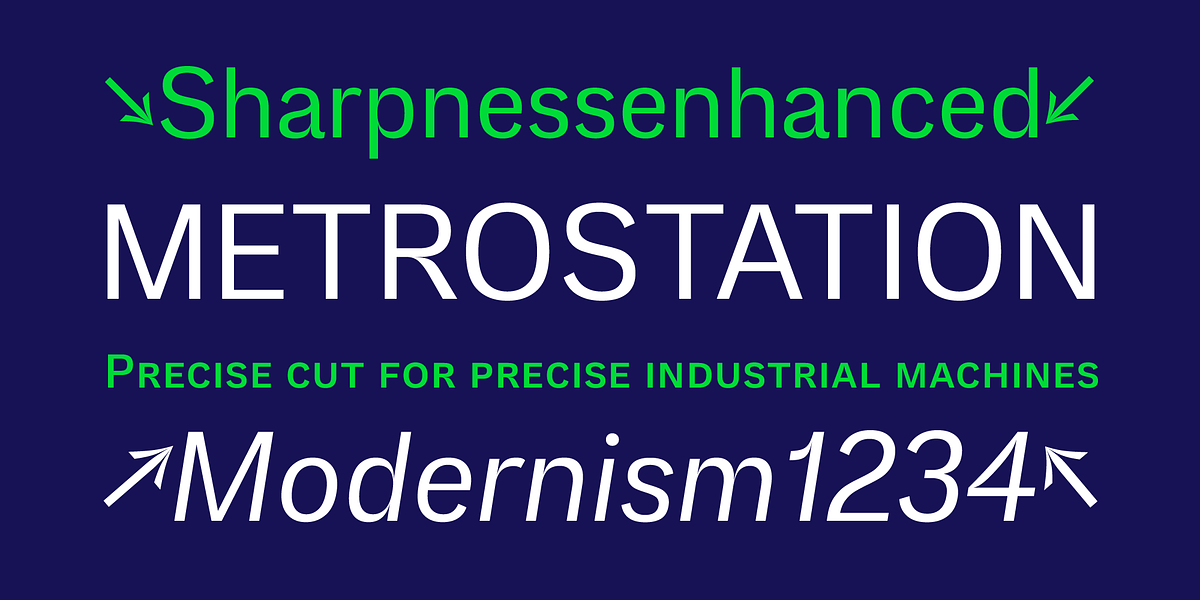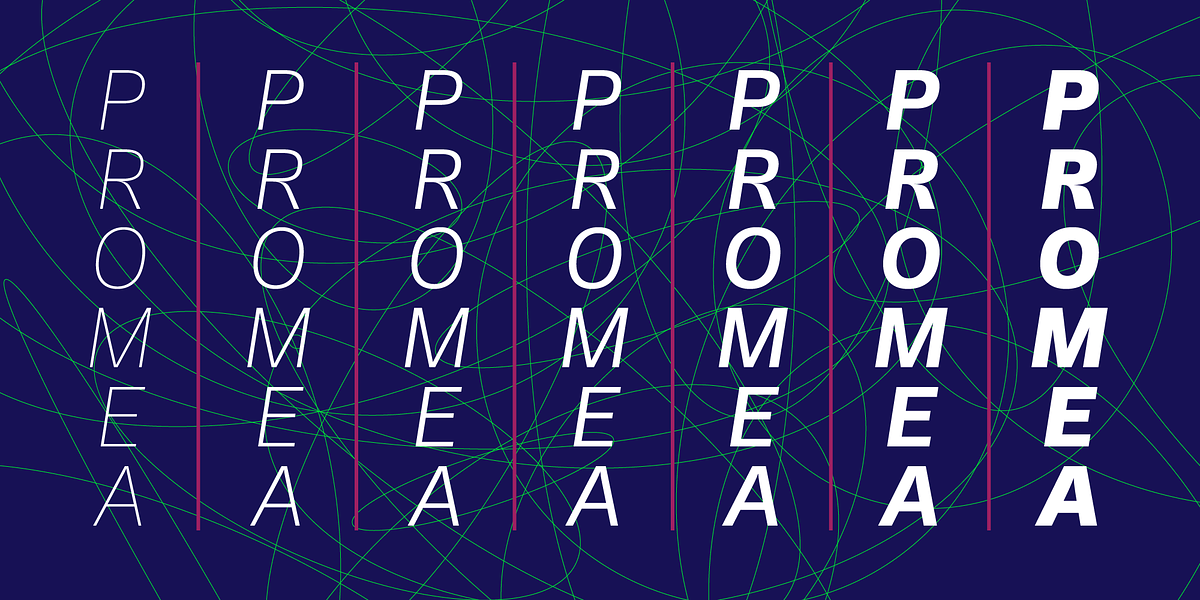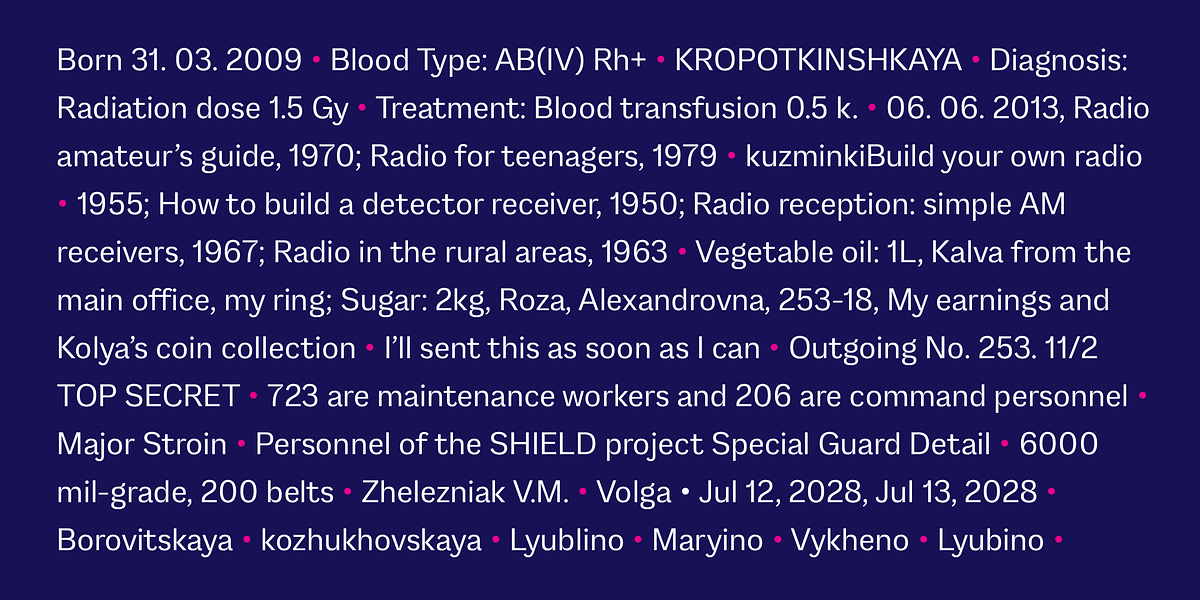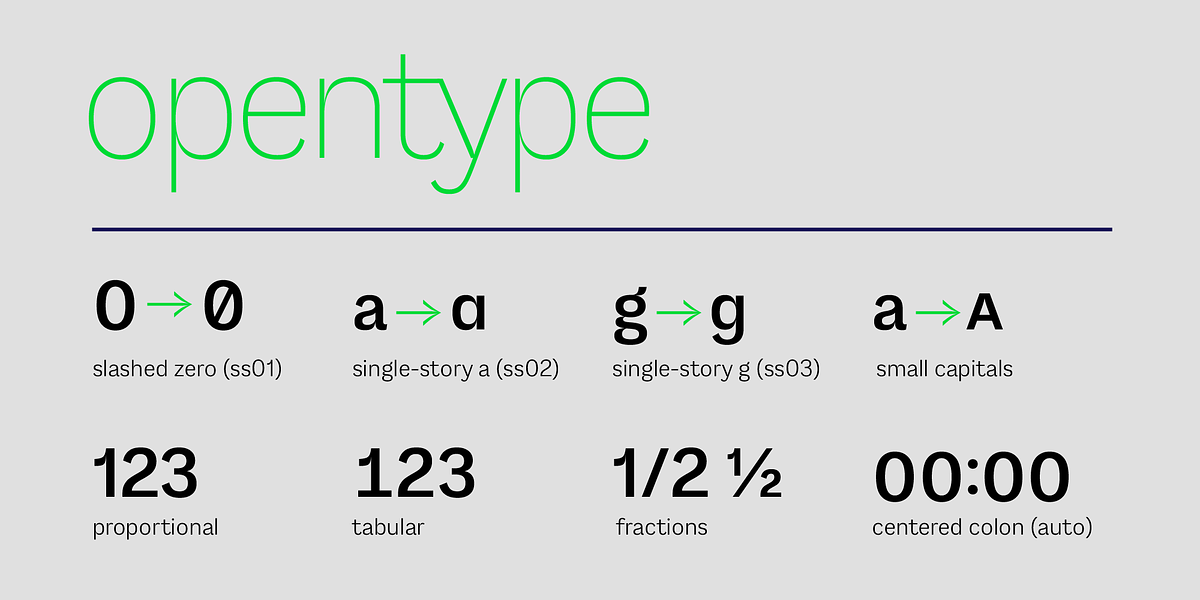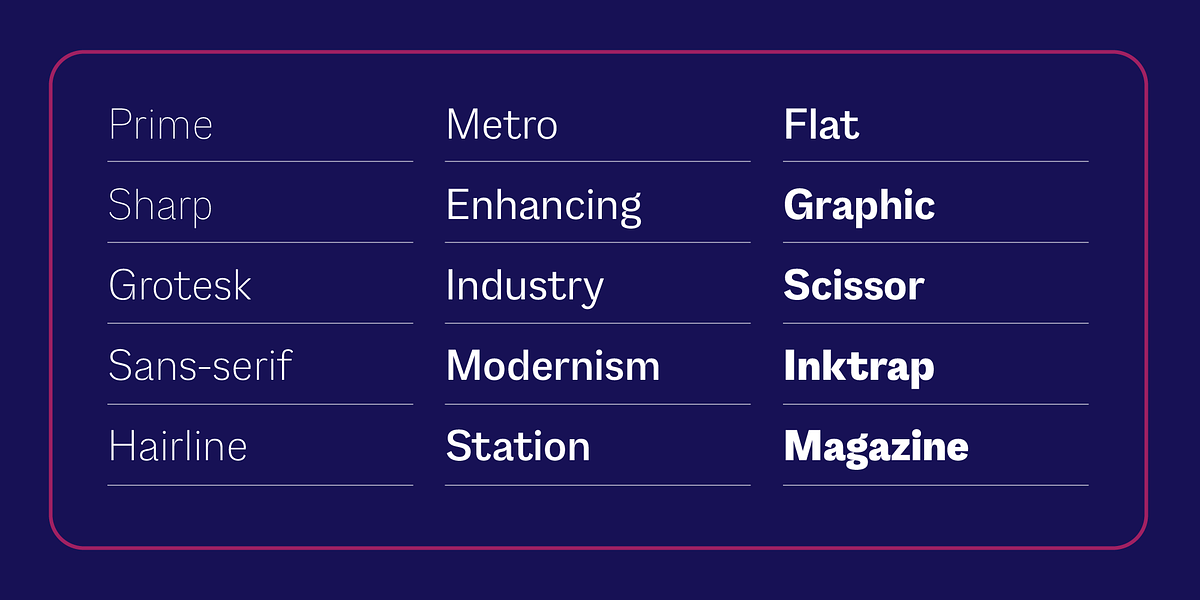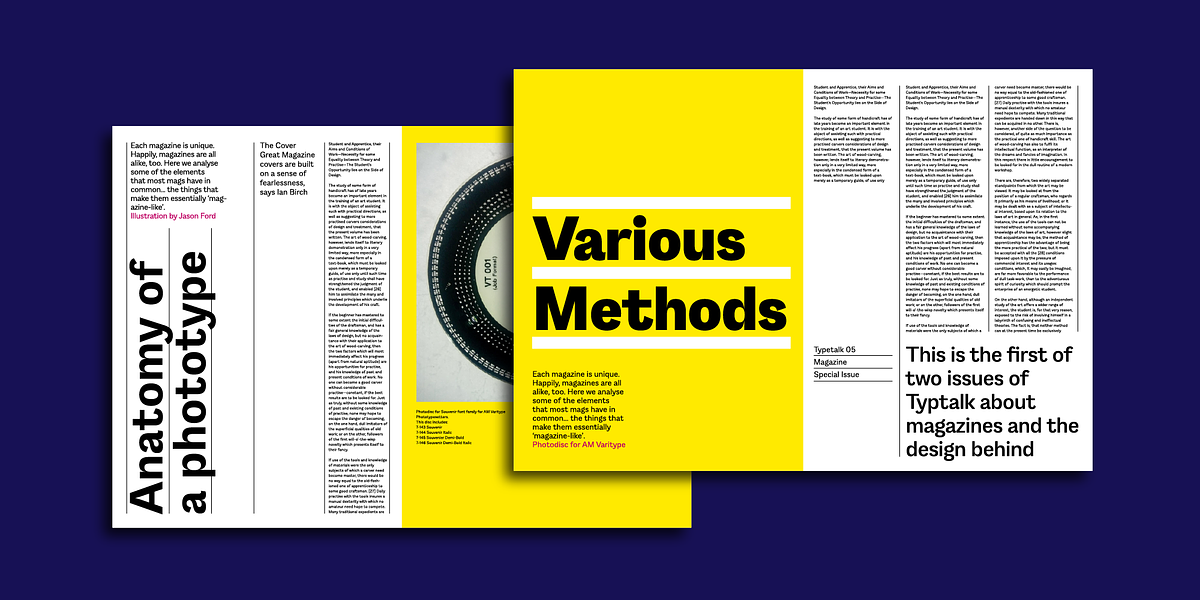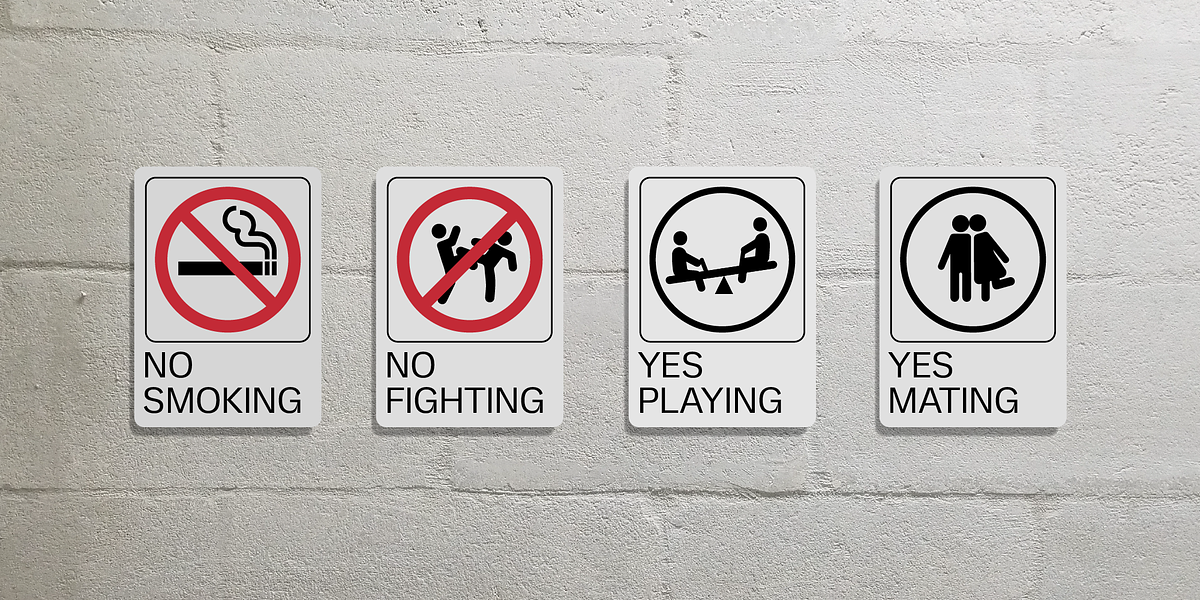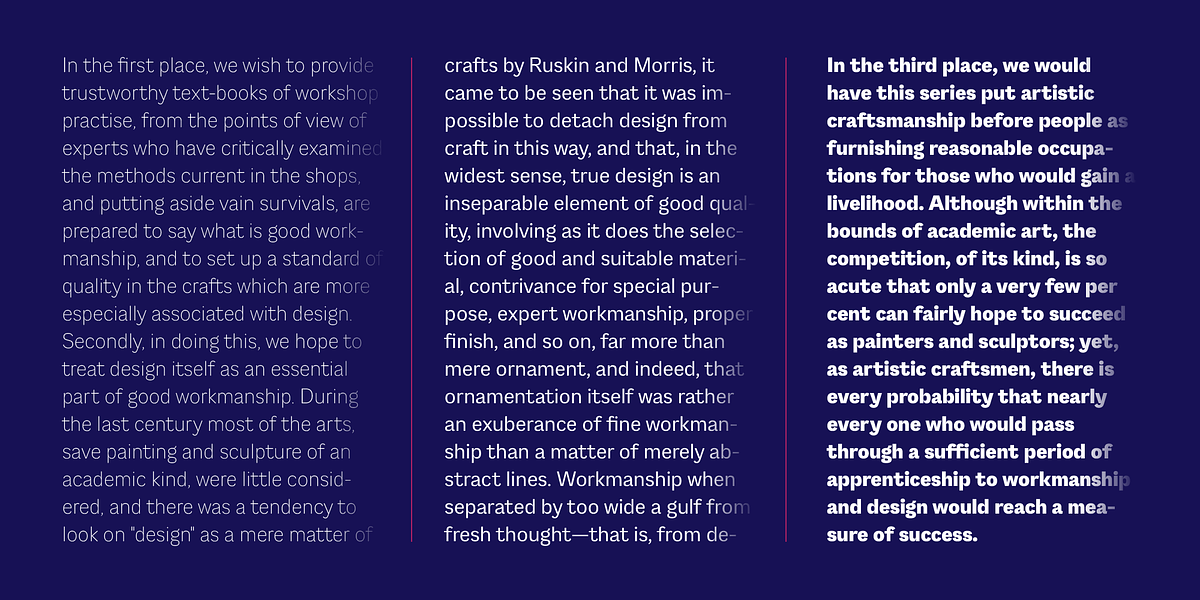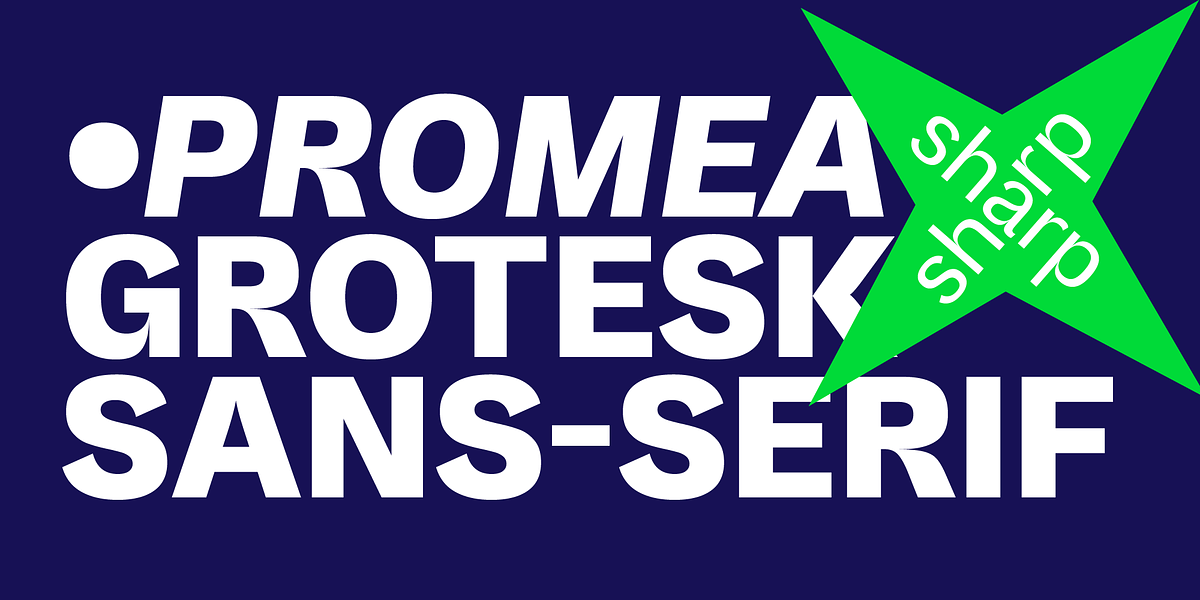
Promea
Promea is a Grotesque sans serif font designed for precision and clarity. Its engineered kerning, support for tabular/proportional figures, slashed zero, and fractions ensure optimal performance in various typographic settings. The combination of stylistic inktraps, low x-height, and high contrast results in a sharp and modern aesthetic.